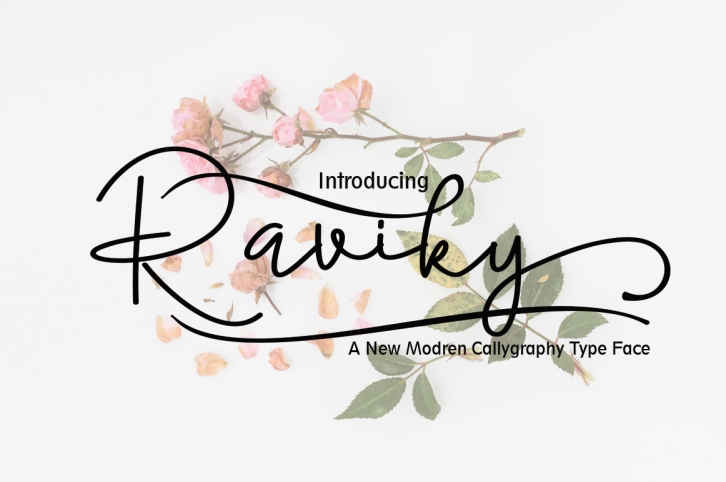
Raviky is a trendy and unique font with an authentic style. It was designed by AsaharStudio and it's a great choice for creative people who need such a font. It was released on March 30, 2019 and the file size is 5.18 MB. Raviky will add an organic vibe to any design idea!